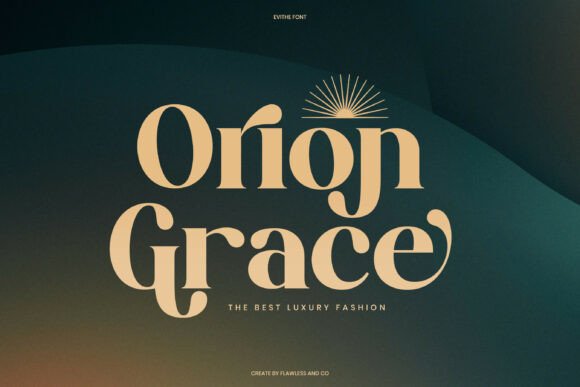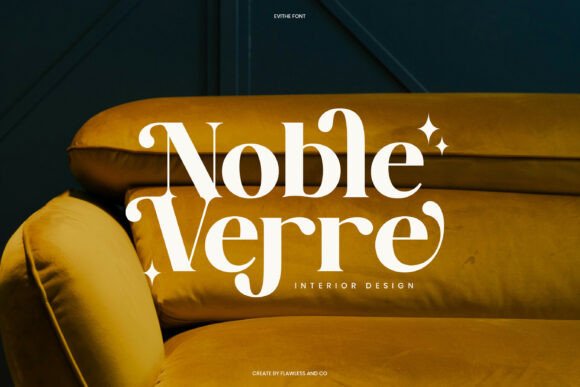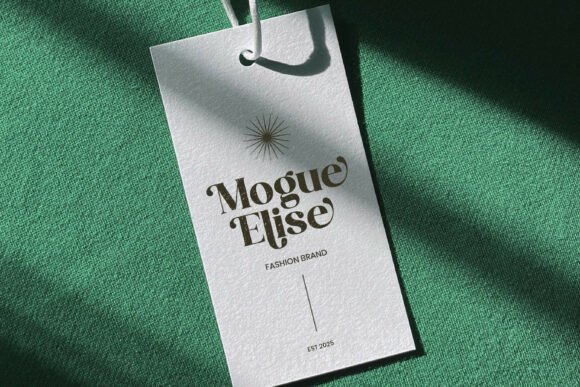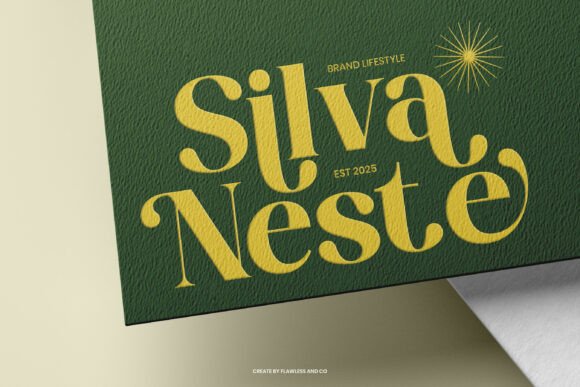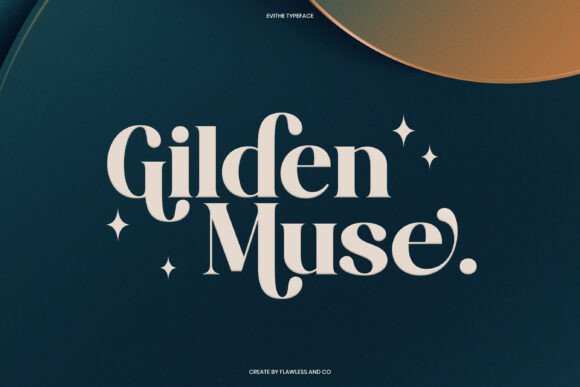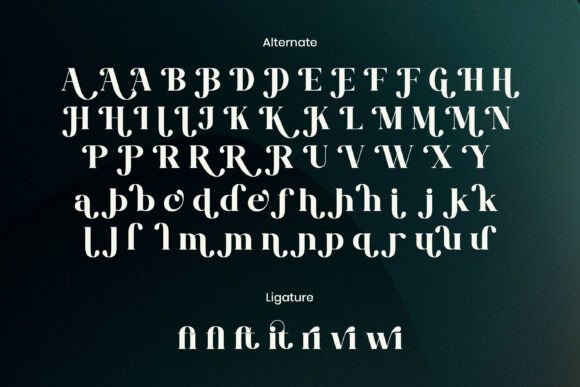
Evithe Font: Elevate Your Visual Identity with Elegance and Sophistication
In the world of typography, fonts play a crucial role in defining the visual identity of a brand, product, or creative project. Among the numerous fonts available, Evithe stands out as a stunning display serif font that embodies elegance and sophistication in every curve. Designed with luxurious flair and attention to detail, EVITHE blends timeless beauty with a modern sensibility, making it the perfect choice for those who seek to elevate their visual identity.
The Essence of Evithe Font
Evithe is more than just a font; it’s an experience. Its elegant and refined design makes it suitable for upscale branding, high-end fashion editorials, and any project that demands a touch of luxury. The font’s creator has meticulously crafted each letter to exude sophistication, ensuring that every word and sentence conveys a sense of high-end quality.
Key Features of Evithe Font
• Display Serif Elegance: EVITHE boasts beautiful serifs that add a classic touch to any design, making it perfect for headings, titles, and short texts.
• Luxurious Flair: The font is designed with a luxurious feel in mind, featuring intricate details that set it apart from more basic fonts.
• Timeless Beauty: Unlike trends that fade over time, EVITHE’s design ensures it remains relevant and stylish for years to come.
• Modern Sensibility: While rooted in classic design principles, EVITHE also incorporates modern elements, making it versatile for a wide range of applications.
Applications of Evithe Font
The versatility of EVITHE makes it suitable for various applications, including:
• Upscale Branding: Elevate your brand’s visual identity with a font that communicates luxury and sophistication.
• High-End Fashion Editorials: Add a touch of elegance to your fashion content, making it stand out in the crowded fashion world.
• Wedding and Event Invitations: Make your invitations memorable with a font that exudes class and refinement.
• Packaging Design: For products that demand a premium feel, EVITHE can enhance the packaging design, making it more appealing to potential customers.
Why Choose Evithe Font?
Choosing EVITHE for your design project comes with numerous benefits:
• Unique Identity: Stand out from the competition with a font that is both distinctive and memorable.
• High Versatility: Use EVITHE across various mediums, from digital platforms to print materials, without losing its impact.
• Easy to Read: Despite its elegant design, EVITHE remains clear and readable, ensuring your message is conveyed effectively.
• Support for Multiple Languages: Reach a broader audience with a font that supports multiple languages.
How to Use Evithe Font Effectively
To maximize the impact of EVITHE, consider the following tips:
• Pair with Simpler Fonts: For body text, pair EVITHE with simpler, sans-serif fonts to create a balanced and harmonious design.
• Adjust Size and Weight: Experiment with different sizes and weights of EVITHE to create visual hierarchy and emphasis.
• Limit Usage: Use EVITHE sparingly to maintain its luxurious feel. Overuse can dilute its impact.
Evithe Font is a powerful tool for designers and crafters looking to infuse their projects with elegance and sophistication. Its luxurious design, combined with its versatility and readability, makes it an excellent choice for a wide range of applications. Whether you’re working on upscale branding, high-end fashion editorials, or any project that demands a touch of luxury, EVITHE is sure to leave a lasting impression.
Discover the potential of EVITHE and elevate your visual identity to new heights of elegance and sophistication.